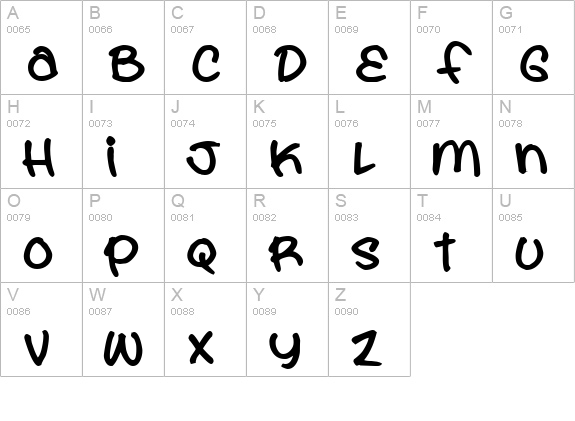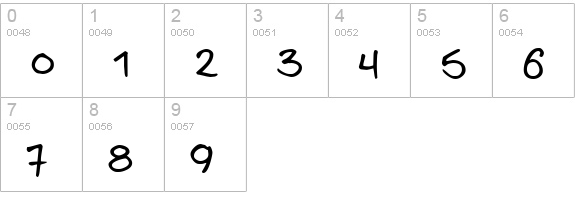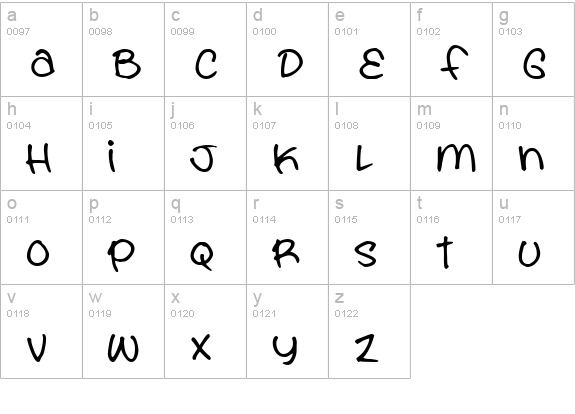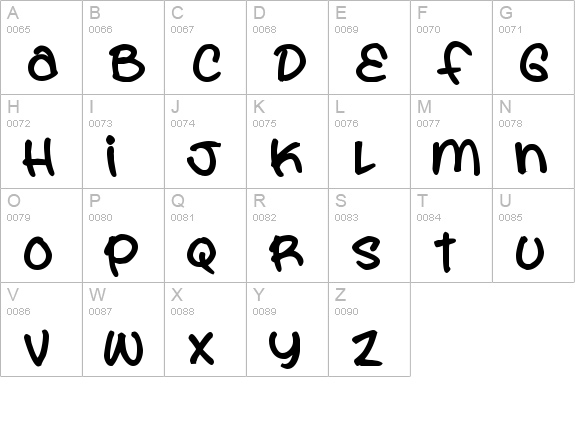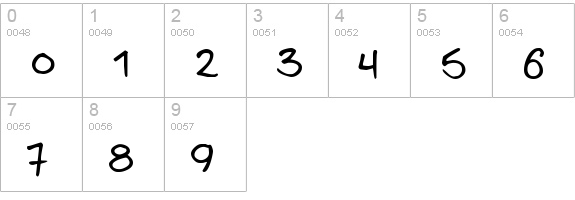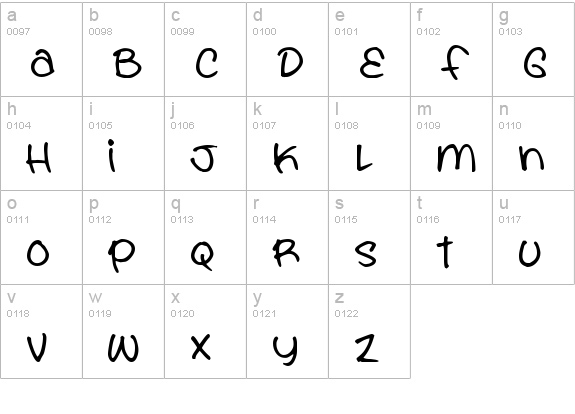
You are what you eat Font Details
Introducing the You Are What You Eat font - a whimsical and playful typeface that is sure to add a touch of fun to your design projects. This unique font features quirky characters with a hand-drawn feel, perfect for adding a touch of personality to your creations. Whether you're working on a poster, logo, or branding project, You Are What You Eat font will help you stand out from the crowd. The best part? This font is completely free to download at FontsMarket.com! Simply head over to the website to grab your copy and start using this delightful typeface in your designs today. Don't miss out on this opportunity to add a touch of charm to your projects with the You Are What You Eat font - download it now for free!